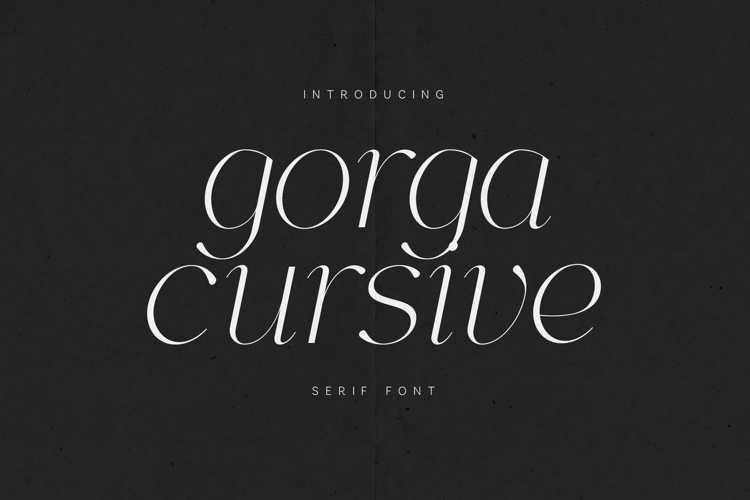
GORGA CURSIVE Elegant Serif Font
Gorga Cursive is a refined serif font with graceful cursive influences, designed to express elegance, softness, and timeless sophistication. Featuring high-contrast strokes, flowing curves, and delicately tapered serifs, this typeface blends classic typography with a modern, romantic touch.
Crafted for expressive design, Gorga Cursive is ideal for branding, editorial headlines, fashion projects, invitations, luxury packaging, quotes, and premium visual identities. Its smooth rhythm and elegant letterforms create a calm yet confident presence that feels both poetic and contemporary.
Gorga Cursive is made for designers who seek beauty in subtle details—where typography flows naturally and emotion lives in every curve.